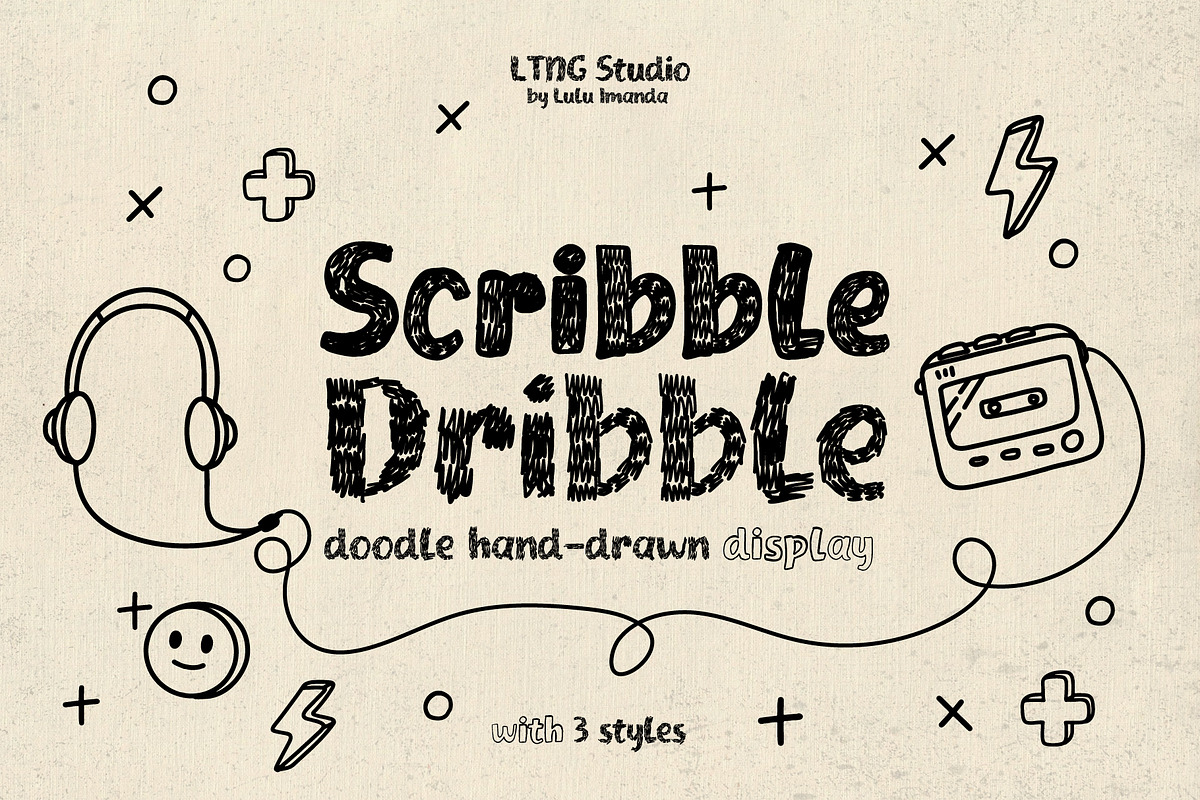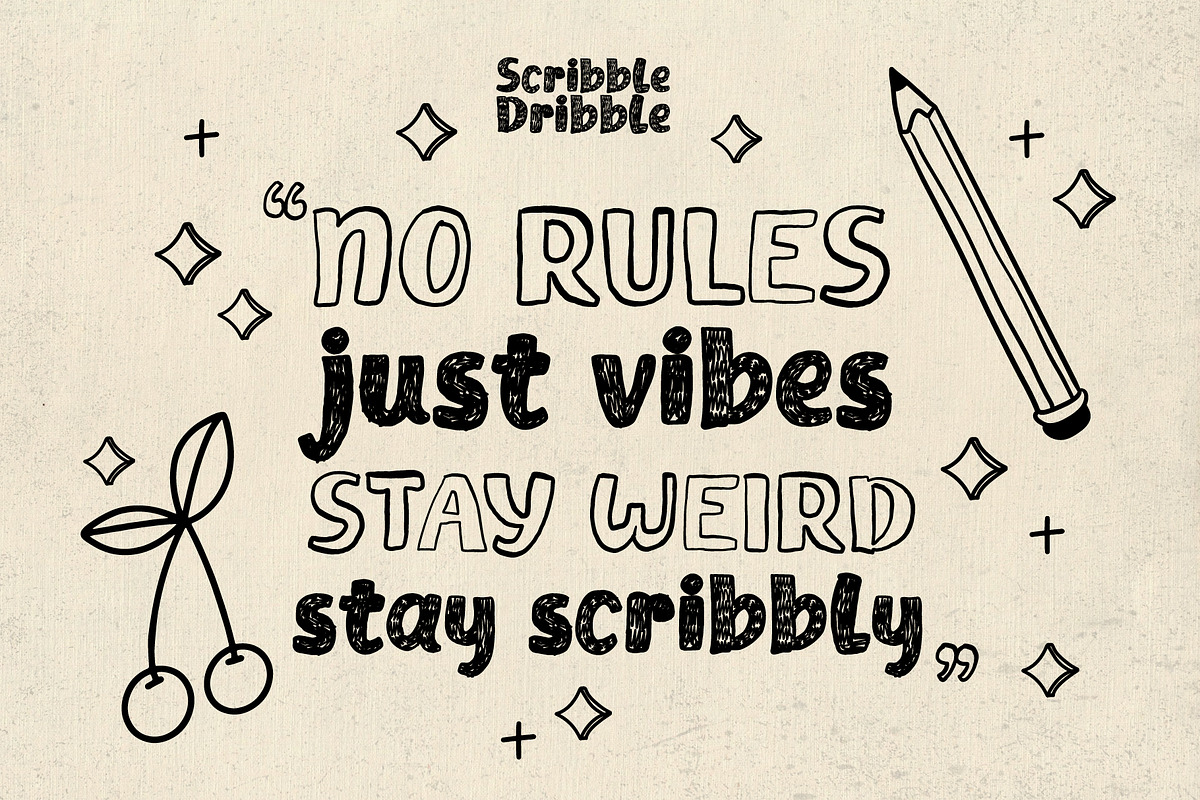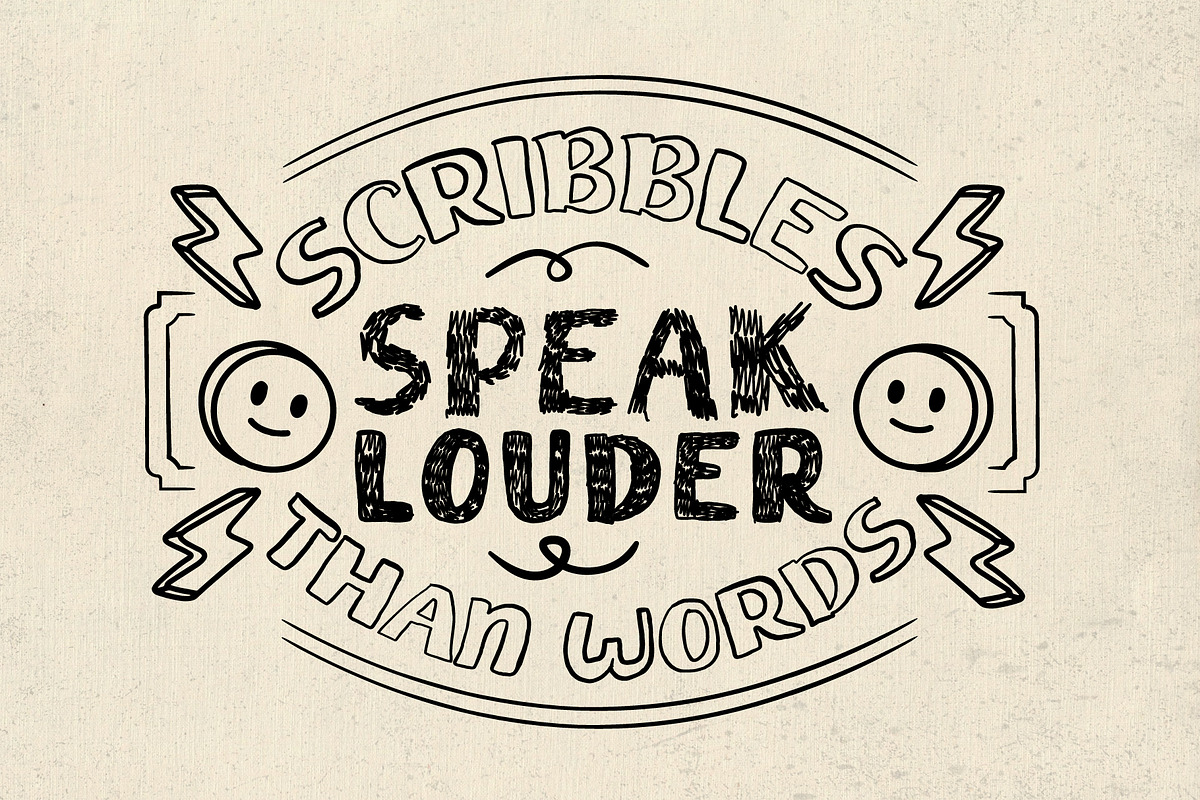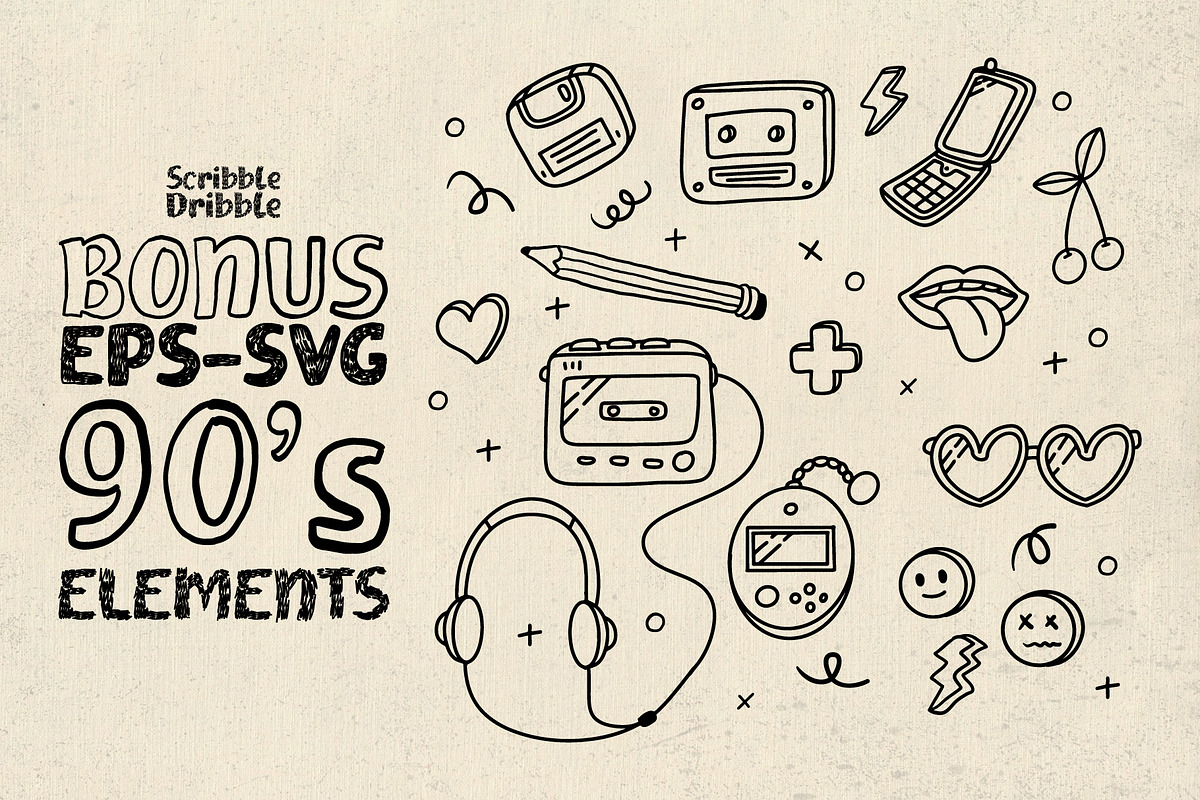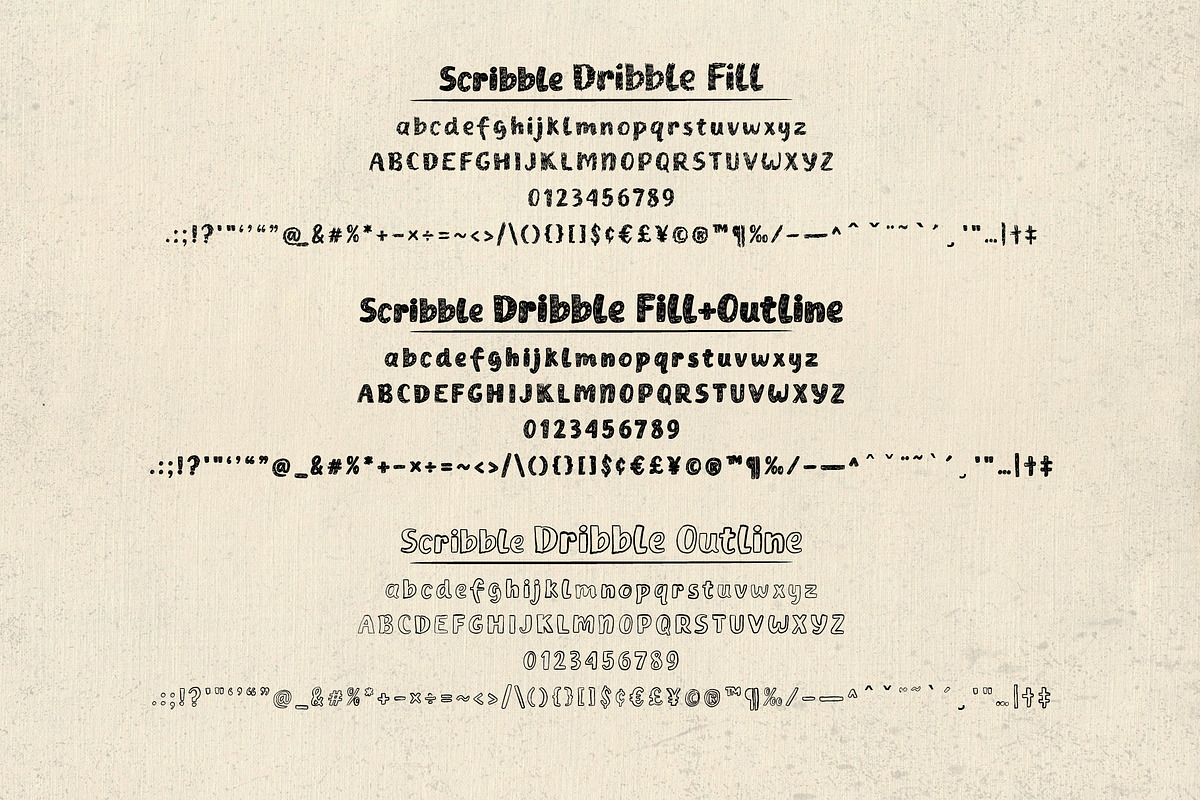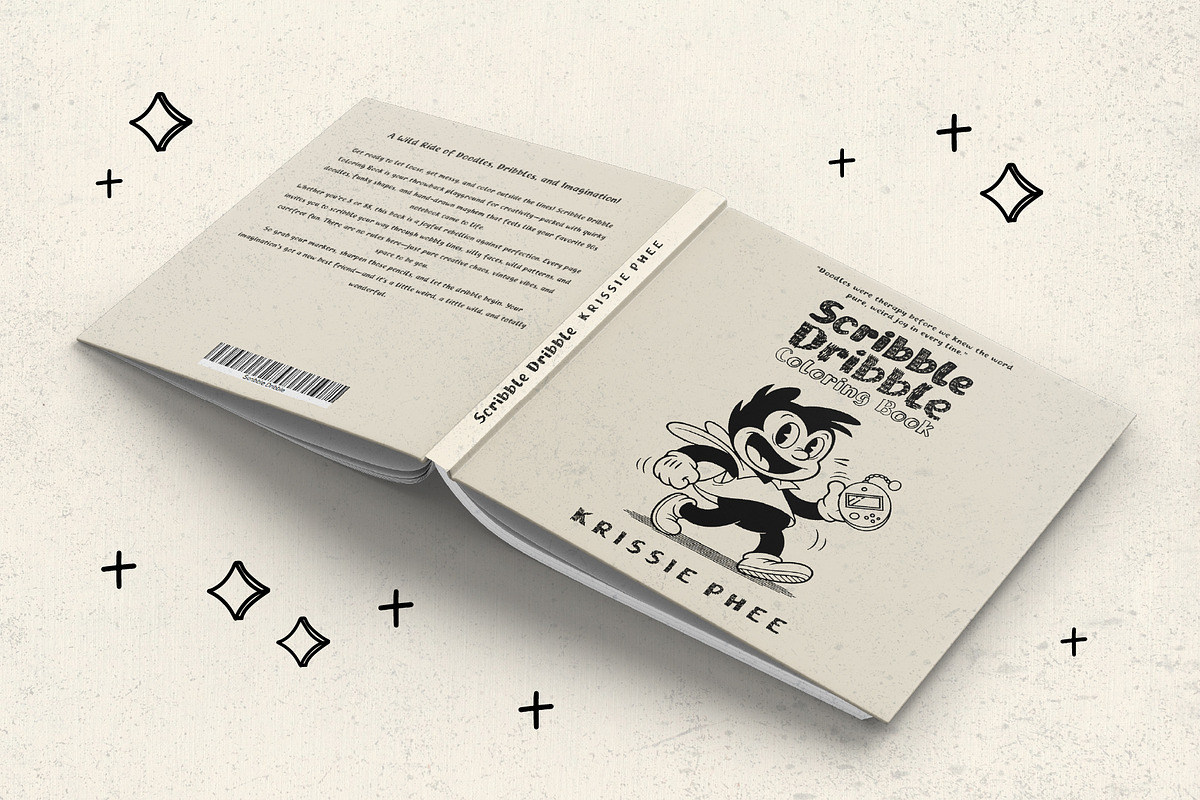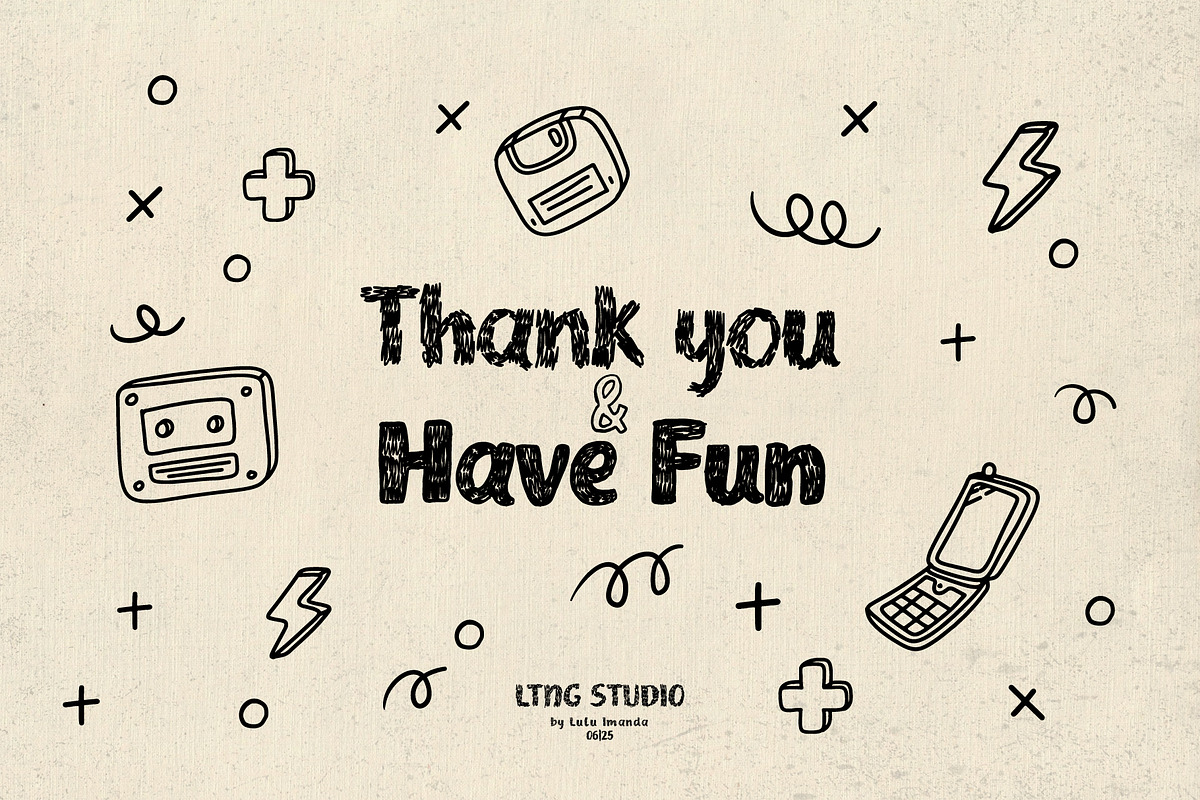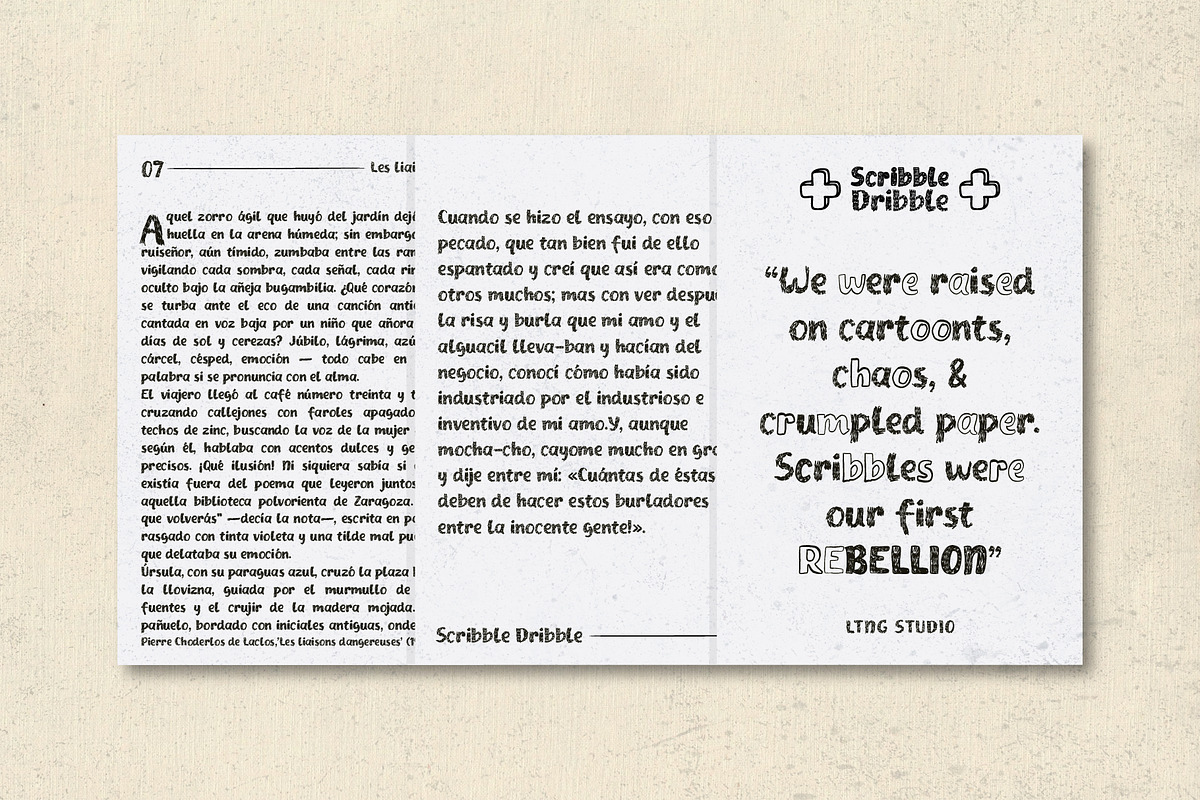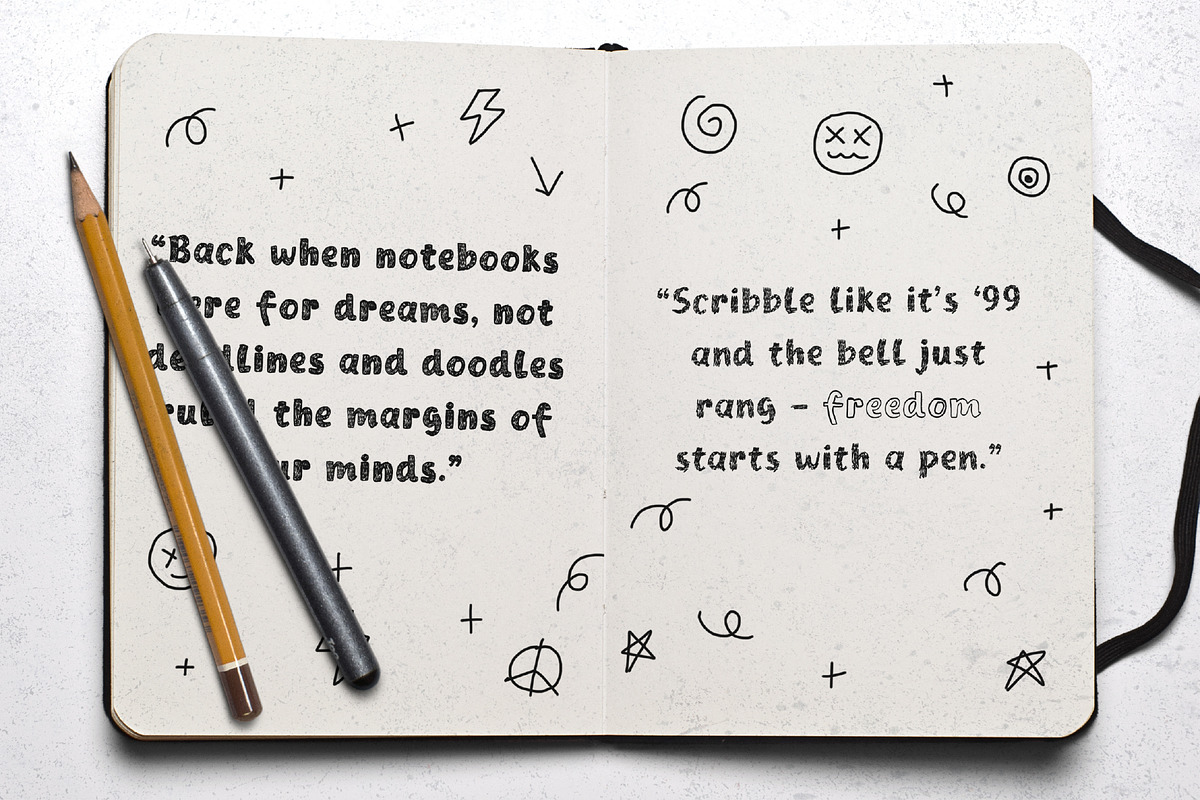
Scribble Dribble - Doodle hand-drawn
Scribble Dribble - Doodle hand-drawn display
Scribble Dribble is a hand-drawn display font bursting with nostalgic charm and sketchbook energy. Each letter is scribbled with a free-spirited, imperfect rhythm that feels like it was doodled during class or on the back of a notebook. The playful lines and textured strokes give it a bold, quirky presence—perfect for any design that wants to stand out with personality and a pinch of old-school cool.
Perfect For: Children’s books & coloring pages Retro-style posters or branding T-shirt designs & sticker packs School projects, worksheets, or crafts Throwback party invites & event flyers Social media graphics & YouTube thumbnails Creative logos, zines, or journals Comics, animations, and indie games